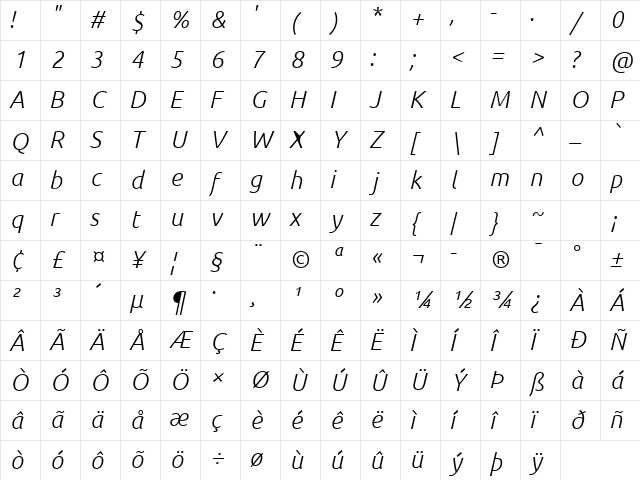
Ubuntu NF Italic
Foundry: Dalton Maag Ltd
Designer: Dalton Maag Ltd
Design Context for Ubuntu NF
Ubuntu NF is a composed and adaptable typeface that performs quietly and consistently across a wide range of design contexts. The slanted form adds forward momentum and visual energy.
Pro Tip: Use Ubuntu NF for emphasis, pull quotes, and subheadings where its slanted energy can add rhythm to the layout.